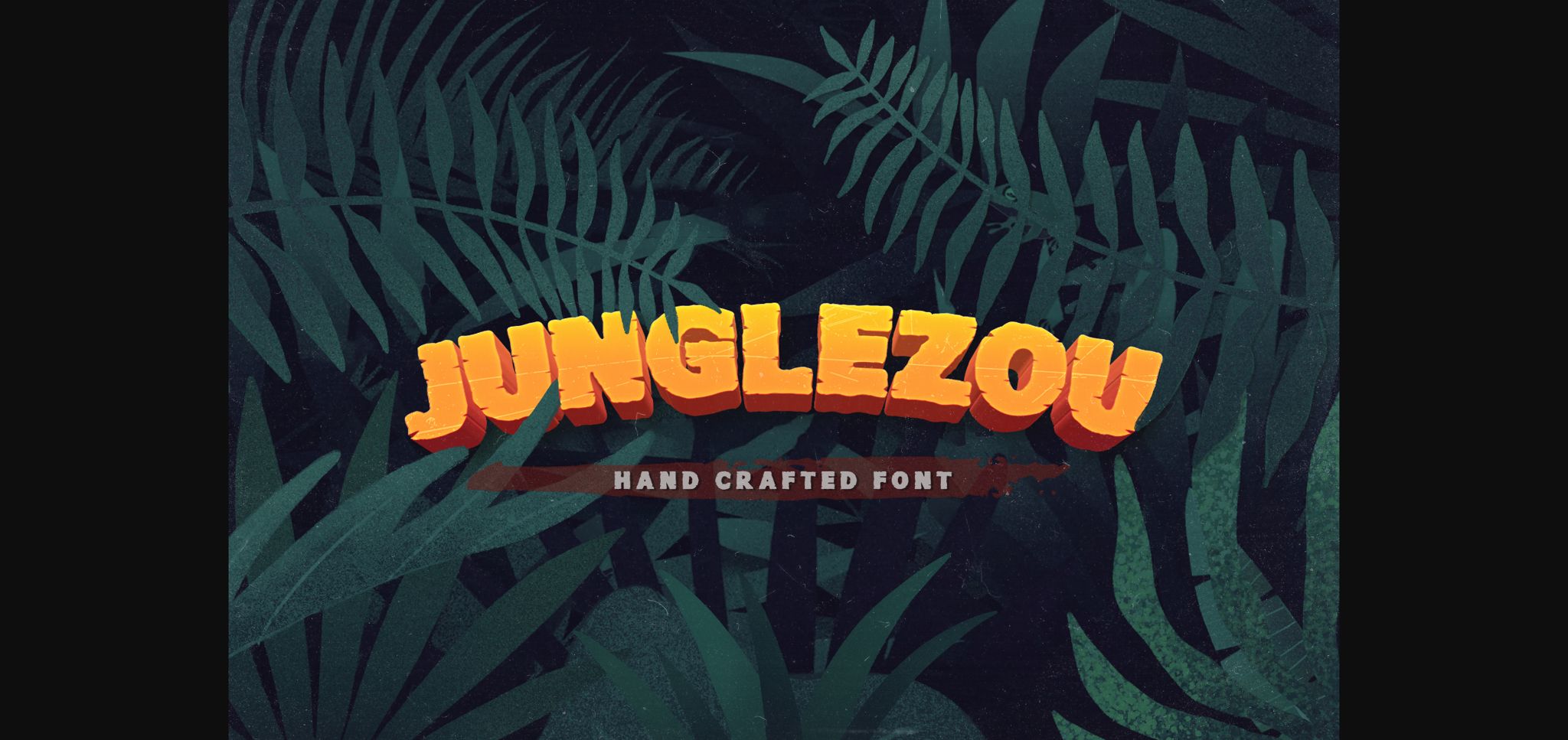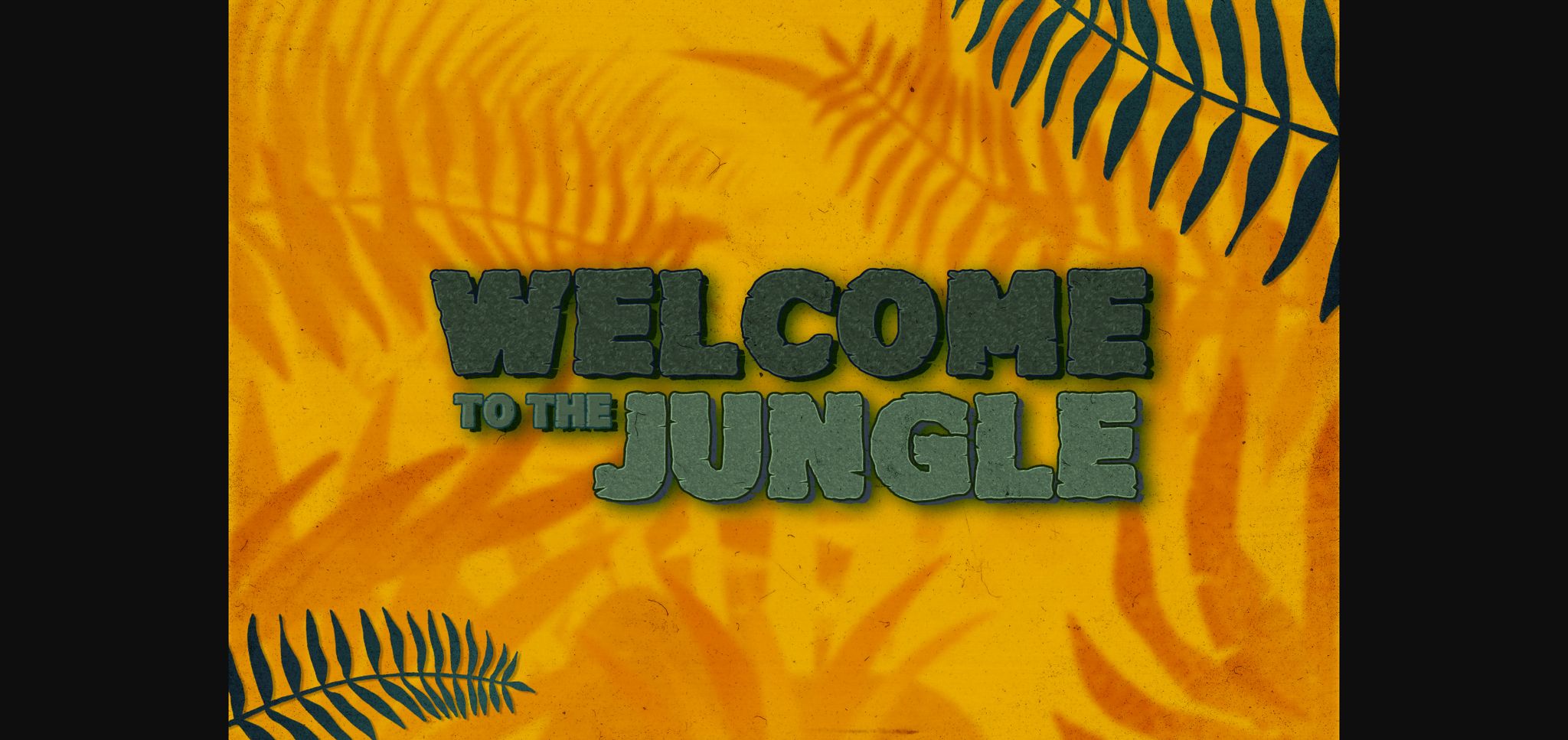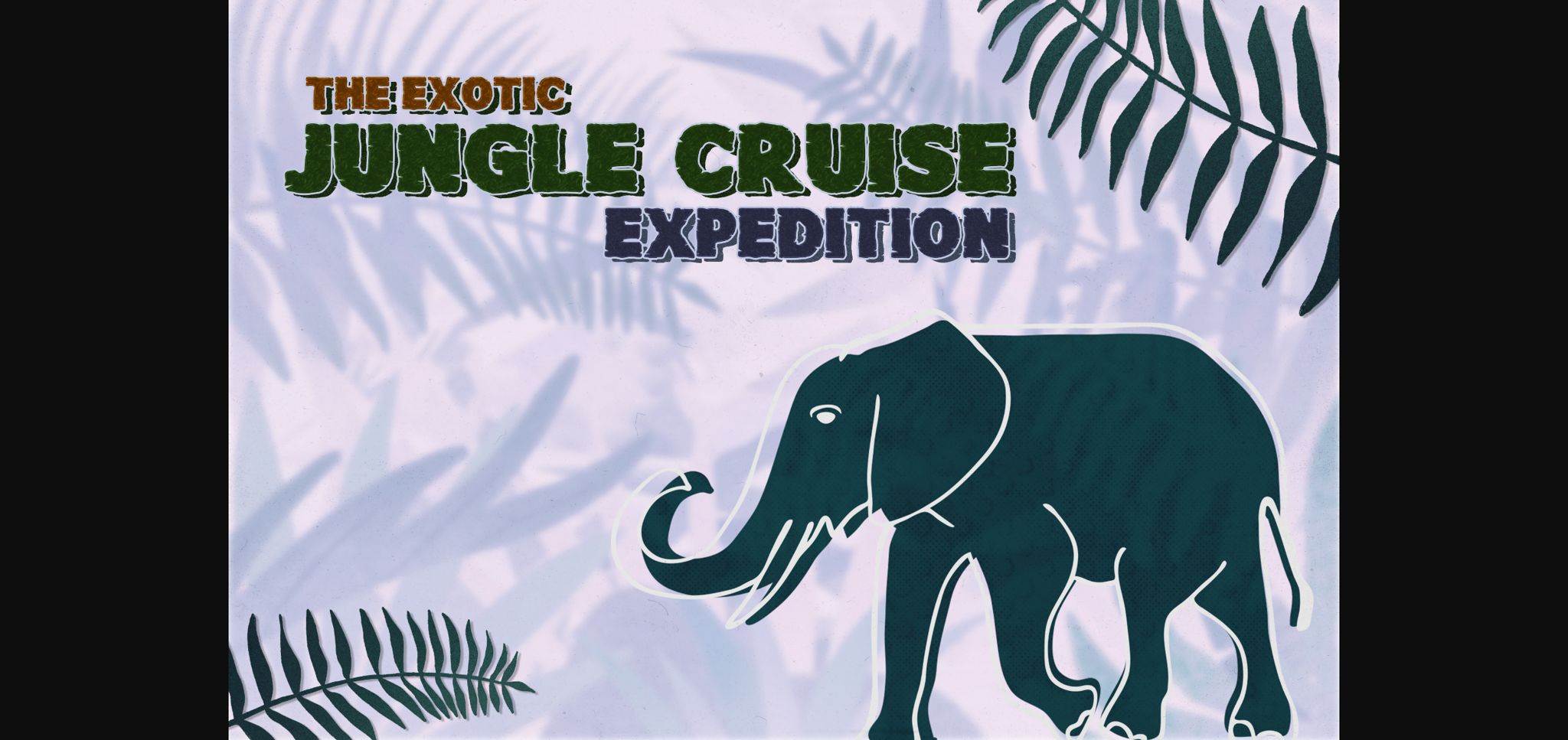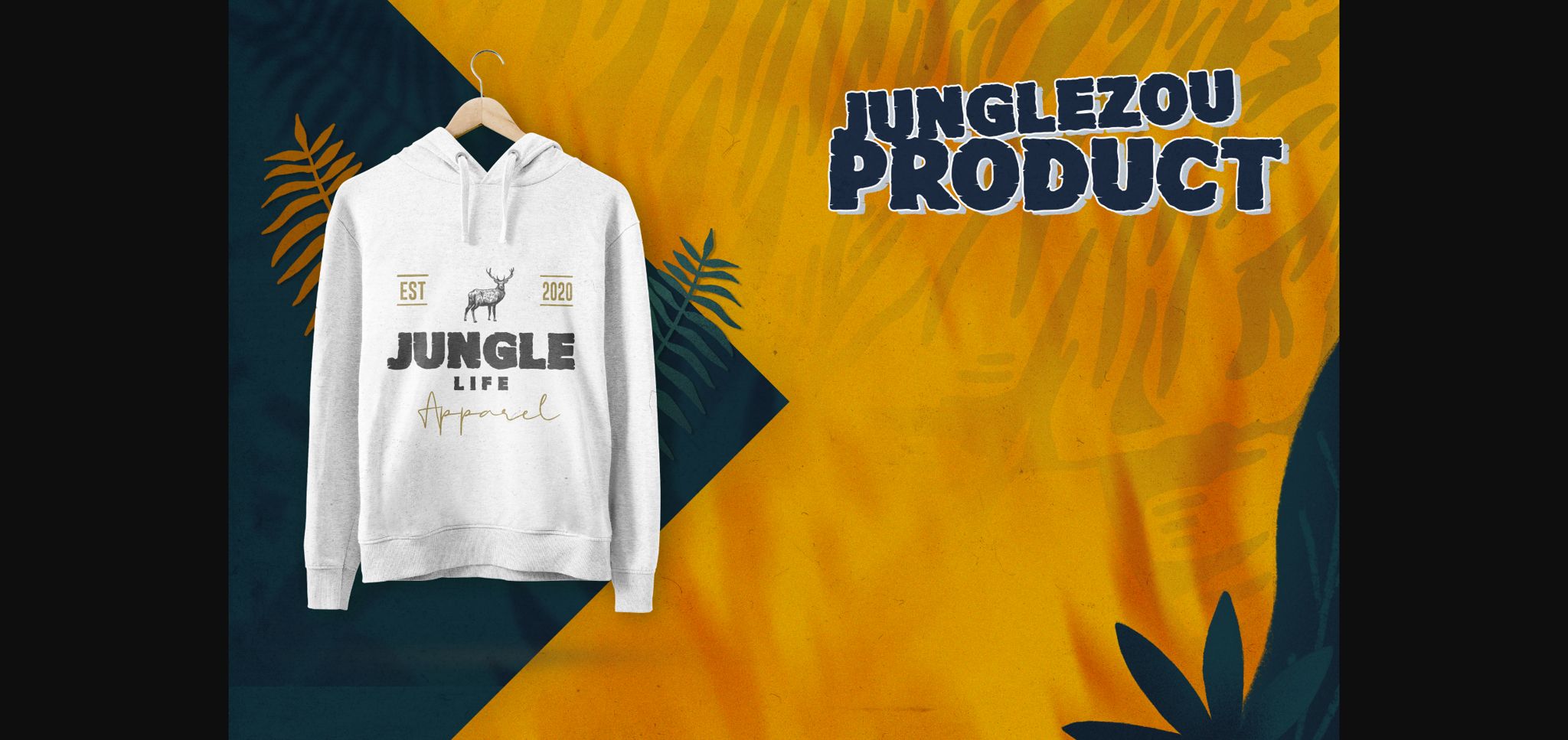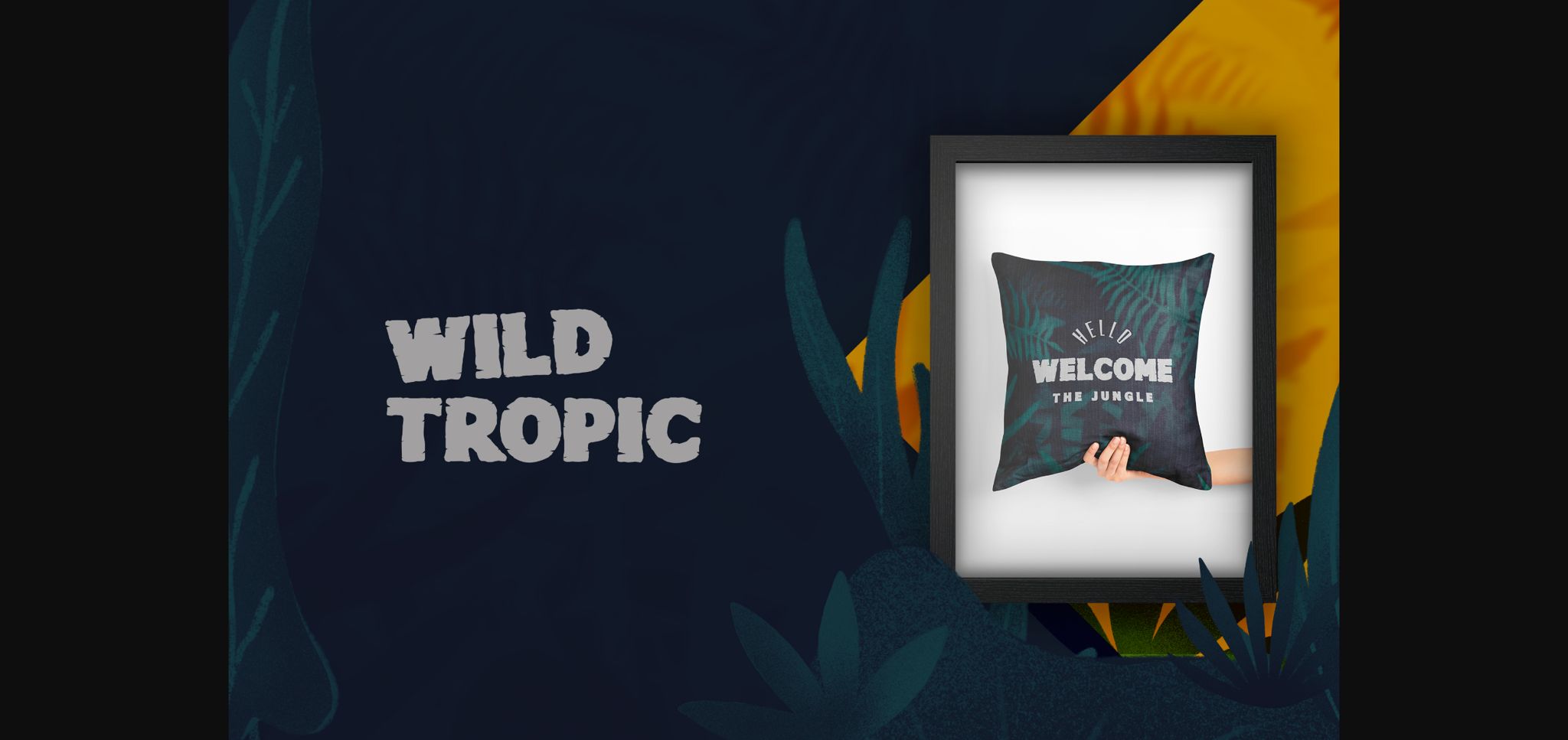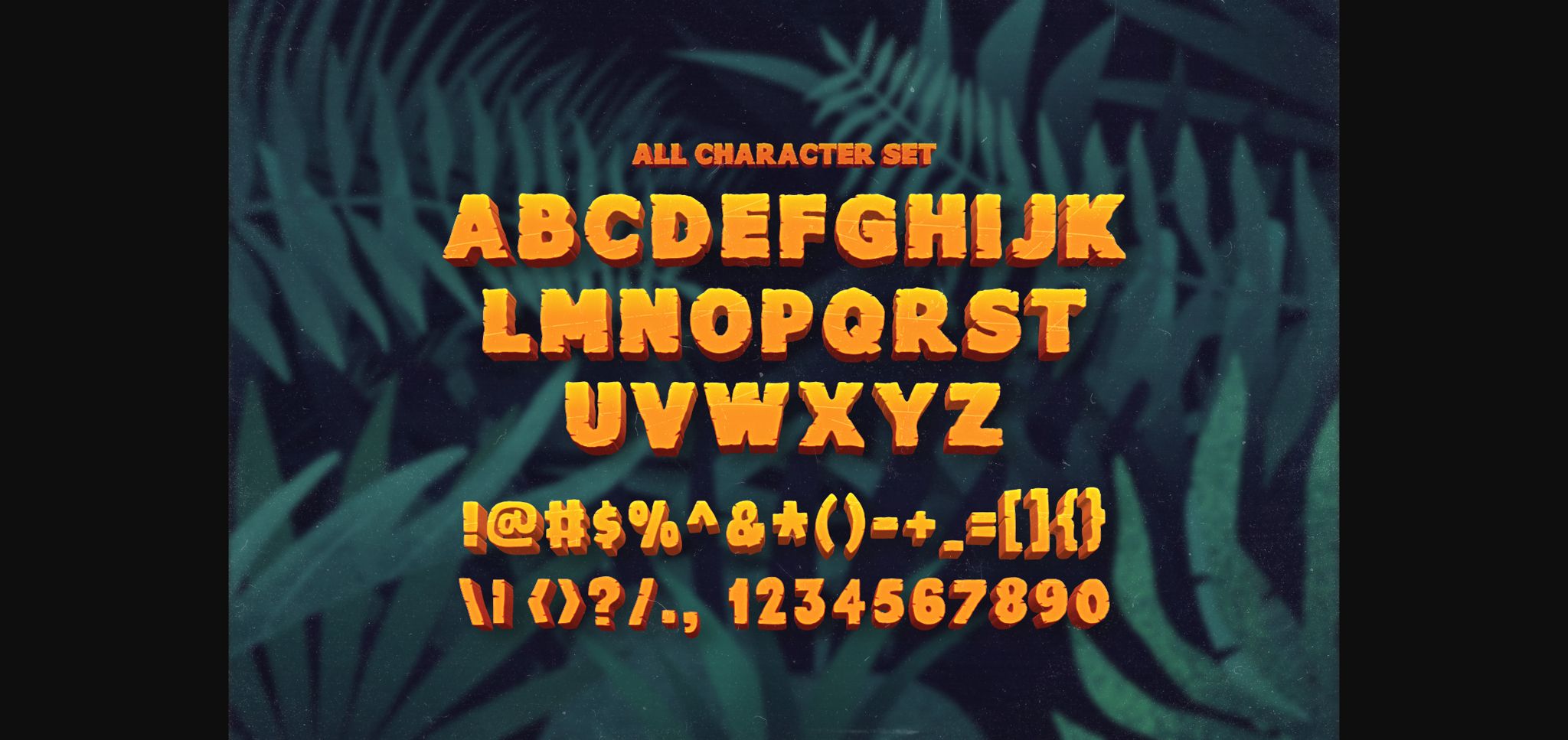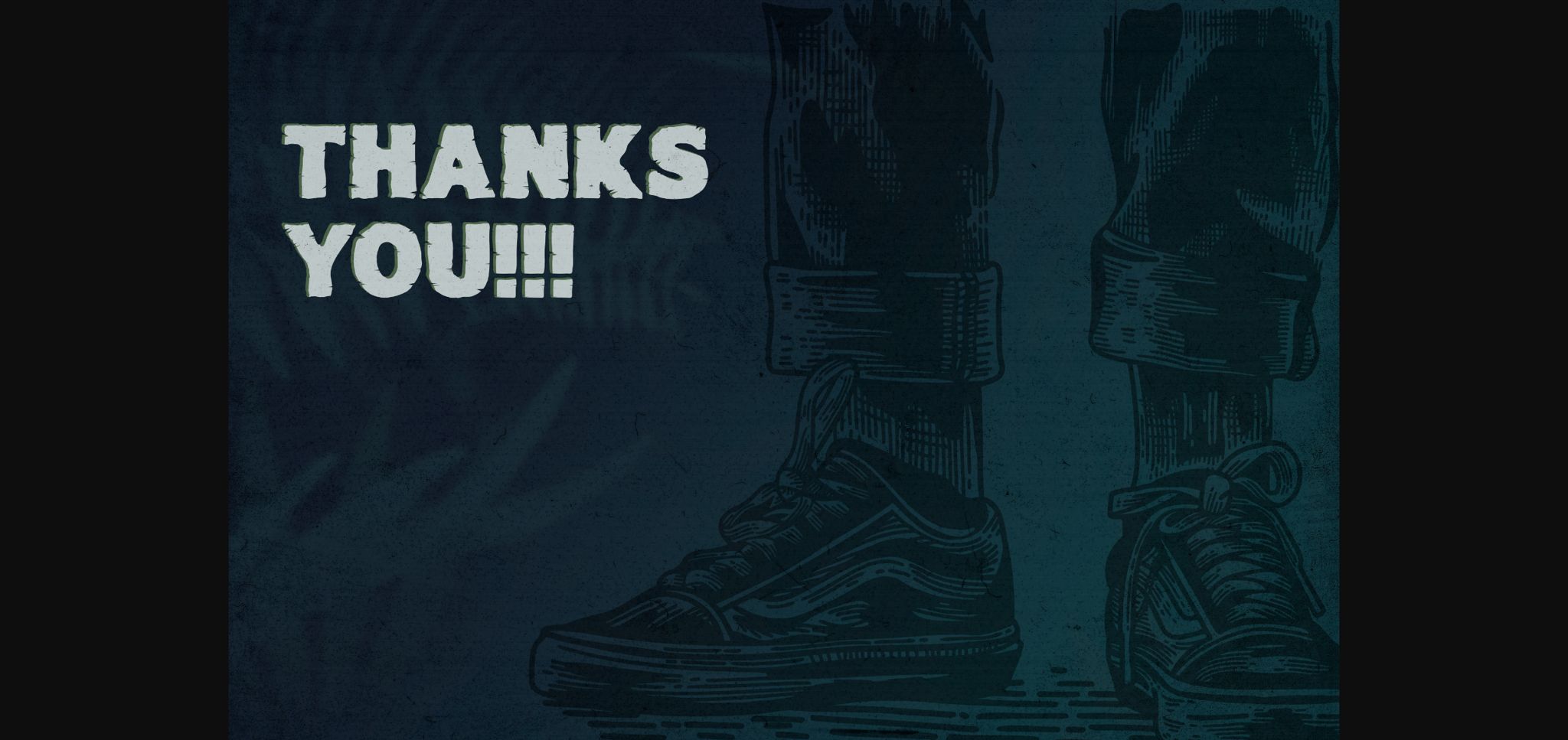
Junglezou Font
About Junglezou Font
Junglezou embodies fun, quirkiness and authenticity. This enchanting sans serif font will turn any creative idea into a true standout.